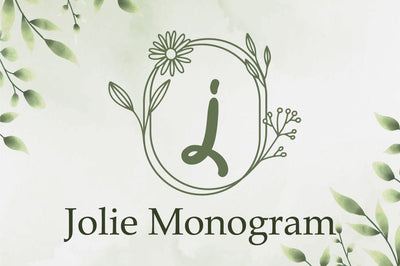
Jolie Monogram
Jolie Monogram is flower monogram font, Fall in love with beautiful lovely designs for your special occasions, business designs, logos, branding, social media posts, and wedding cards.
Comes in with 2 flower styles.
Just simply change between uppercase and lowercase to see the different styles!
- Uppercase (A-Z)
- Lowercase (a-z)